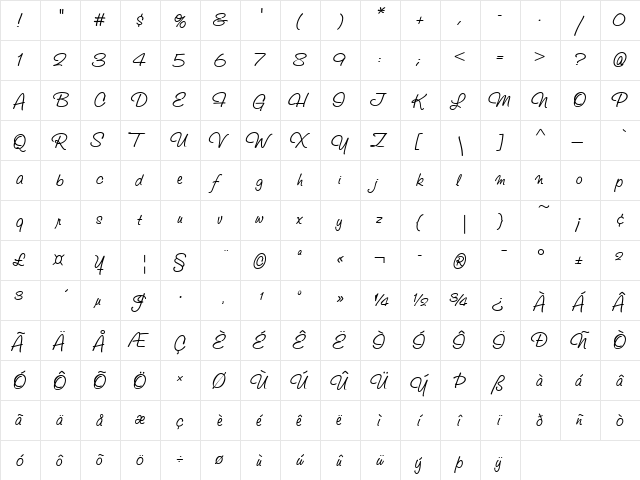
Studio Script ITC Regular Font Preview
Studio Script ITC Regular
Studio Script ITC Regular Font Details
Design Context for Studio Script ITC Typeface
Studio Script ITC flows with the natural rhythm of handwritten lettering, making it ideal for designs that call for warmth and personal expression.
Font Pairing: Combine Studio Script ITC with a simple geometric sans for maximum contrast — the tension between flowing curves and clean structure is a classic typographic pairing.
Pro Tip: Pair Studio Script ITC with a clean sans-serif for supporting text. The contrast between fluid script and geometric structure creates an elegant typographic hierarchy.